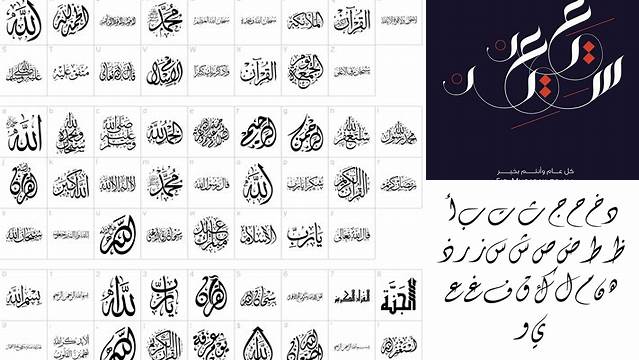
Are you looking to enhance your documents with the beauty and elegance of Arabic calligraphy? Look no further! In this article, we'll explore the world of Arabic calligraphy fonts, specifically focusing on how you can download and use them for free in Microsoft Word. Whether you're working on a religious text, a cultural project, or simply want to add a touch of artistic flair to your writing, having the right fonts can make all the difference. Let's dive into the fascinating world of Arabic calligraphy and discover how to bring its charm to your digital creations. We will discuss where to find these fonts, how to install them, and how to use them effectively in Microsoft Word. So, guys, get ready to transform your documents into masterpieces of textual art!
Understanding Arabic Calligraphy
Before we jump into the fonts themselves, let's take a moment to appreciate the art of Arabic calligraphy. Arabic calligraphy, or khatt, is more than just beautiful writing; it's a deeply revered art form with a rich history and cultural significance. It's been used for centuries to transcribe the Quran, create intricate decorations in mosques and palaces, and produce stunning works of art. The flowing lines and elegant curves of Arabic script lend themselves perfectly to artistic expression, making calligraphy a timeless and cherished tradition. There are several distinct styles of Arabic calligraphy, each with its unique characteristics and aesthetic appeal. Some of the most well-known styles include:
- Naskh: This is a clear and legible script often used for printing and general writing. It’s known for its balanced proportions and simplicity.
- Thuluth: A majestic and ornamental script, Thuluth is frequently used for titles, headings, and decorative panels. It's characterized by its large size, curved lines, and complex compositions.
- Kufic: One of the oldest forms of Arabic script, Kufic is distinguished by its angular and geometric shapes. It's often found in early Quranic manuscripts and architectural inscriptions.
- Diwani: A cursive and ornate script, Diwani is known for its rounded forms and flowing lines. It was developed during the Ottoman Empire and is often used for official documents and certificates.
- Ruq'ah: A quick and practical script, Ruq'ah is commonly used for everyday handwriting and informal correspondence. It's characterized by its simple forms and connected letters.
Each of these styles brings a unique flavor to your text, and understanding their differences can help you choose the perfect font for your project. Now that we have a better understanding of the art form, let’s explore where you can find these beautiful fonts for free.
- DaFont: DaFont is a popular website with a vast collection of fonts, including many Arabic calligraphy styles. While the quality of fonts on DaFont can vary, there are plenty of gems to be found if you take the time to browse. Be sure to check the font licenses before using them, as some fonts may only be free for personal use.
- ArabicFonts.net: As the name suggests, this website specializes in Arabic fonts. You can find a wide variety of calligraphy styles here, from traditional scripts to more modern interpretations. The website is easy to navigate, and you can preview the fonts before downloading them.
- Free-Arabic-Fonts.com: This is another dedicated resource for Arabic fonts, offering a selection of free fonts in various styles. The website is well-organized, and you can easily find fonts that suit your needs. Be sure to read the font licenses carefully before using them in your projects.
When downloading fonts, always pay attention to the license agreement. Some fonts are free for personal use but require a license for commercial use. Others are completely free for any purpose. Ensuring that you comply with the license terms will save you potential legal headaches down the road. Once you’ve found a font you like, the next step is to download and install it on your computer. Let’s take a look at how to do that.